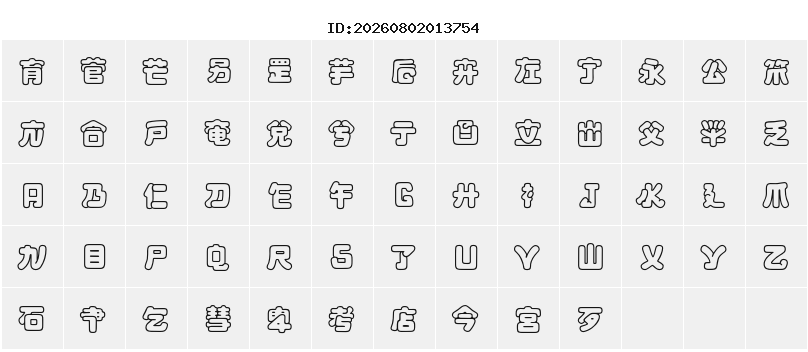
• Font Name: Maximage Jululu Outline
• Designer: Maximage
About Maximage Jululu Outline.otf
Maximage Jululu Outline.otf is a modern, elegant sans-serif font designed for ultimate readability and visual harmony. Perfect for branding, headlines, web design, and print materials.